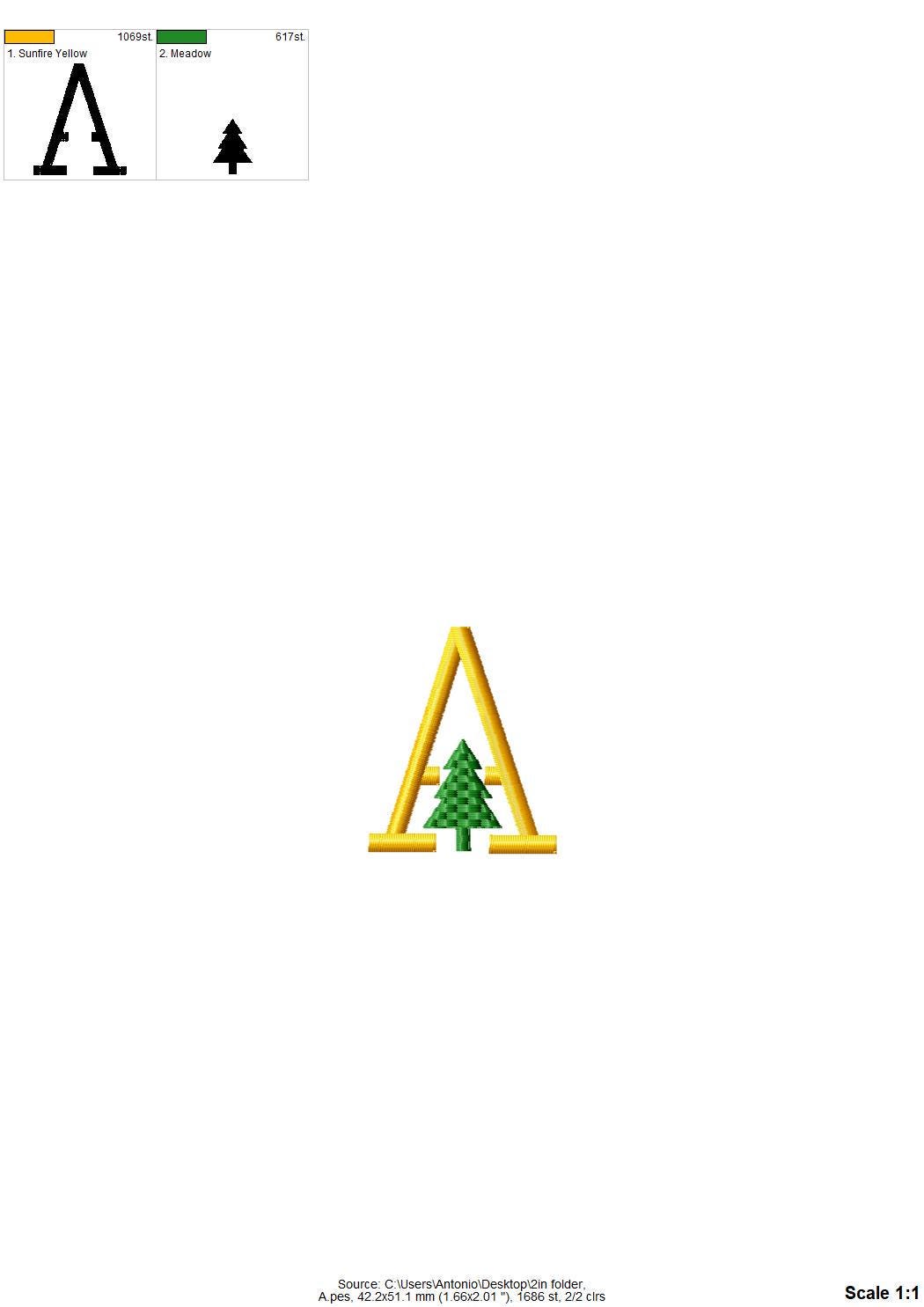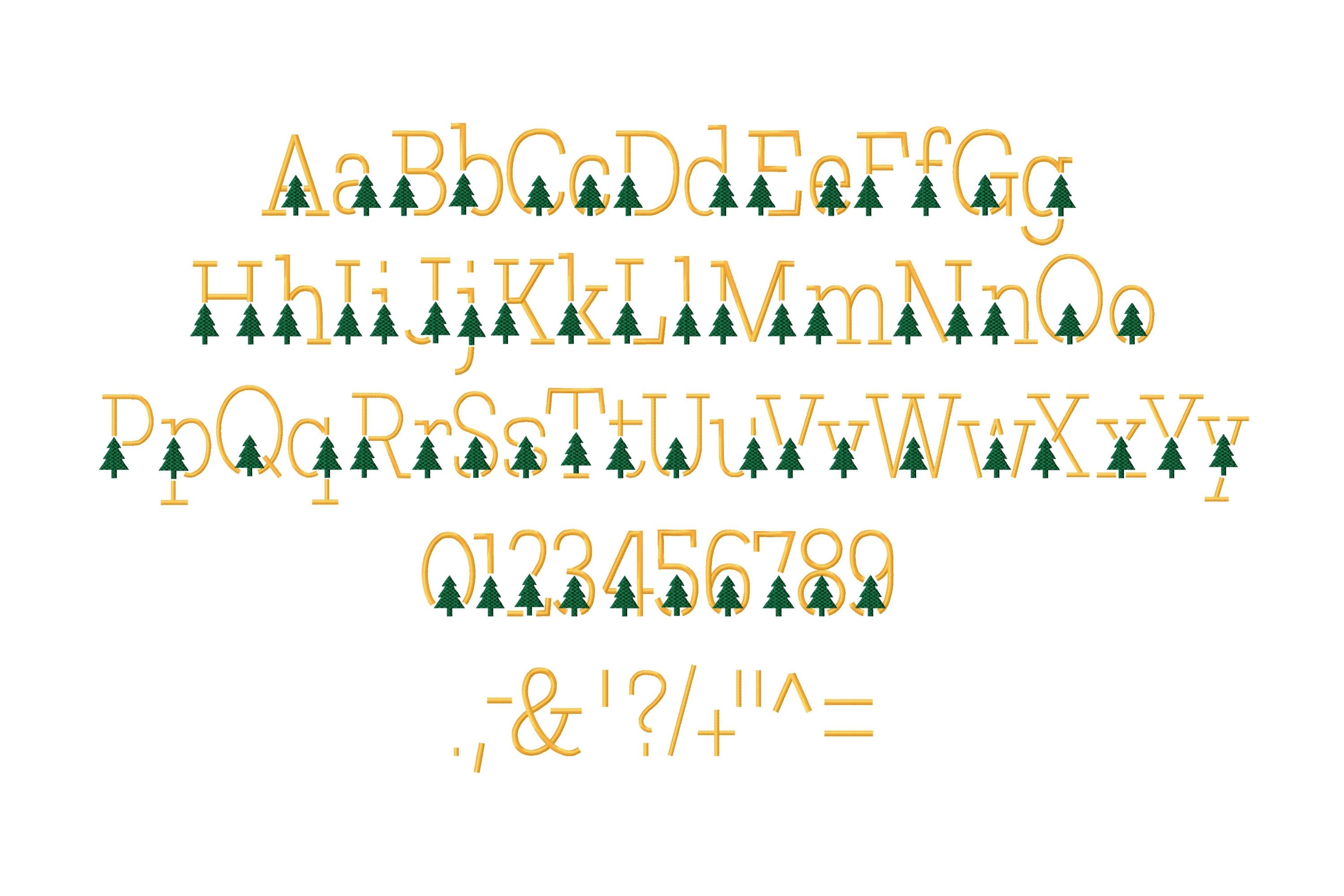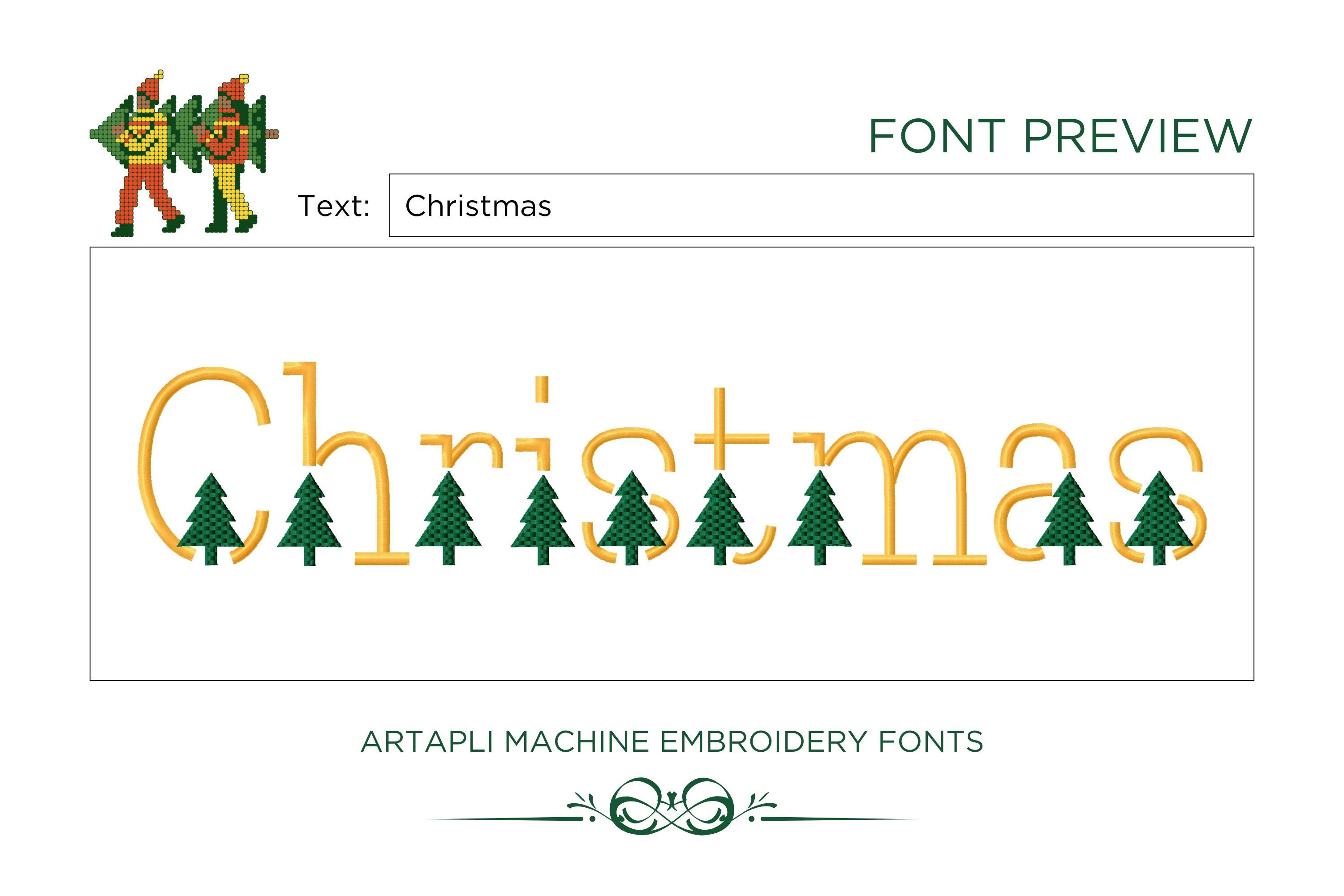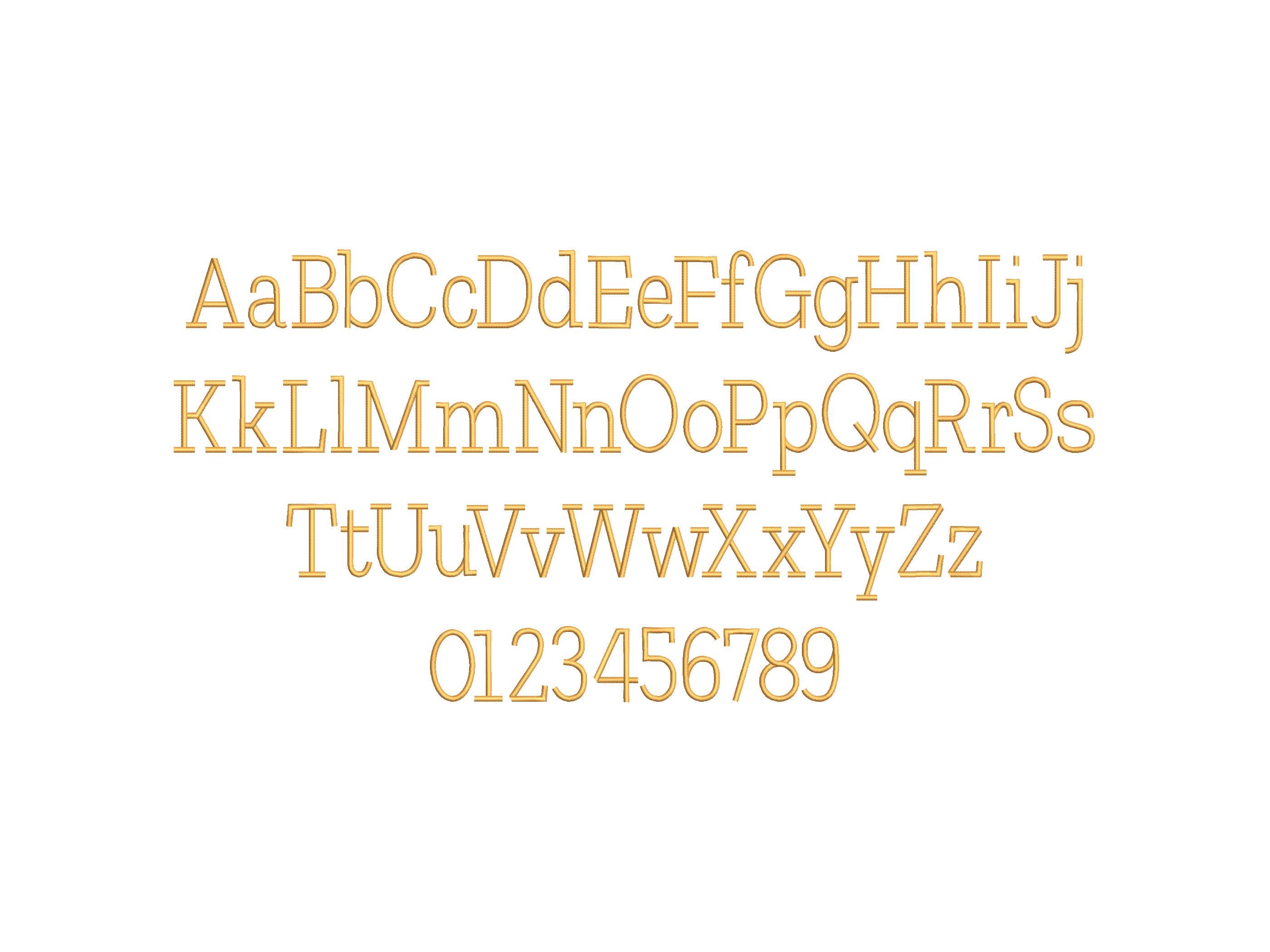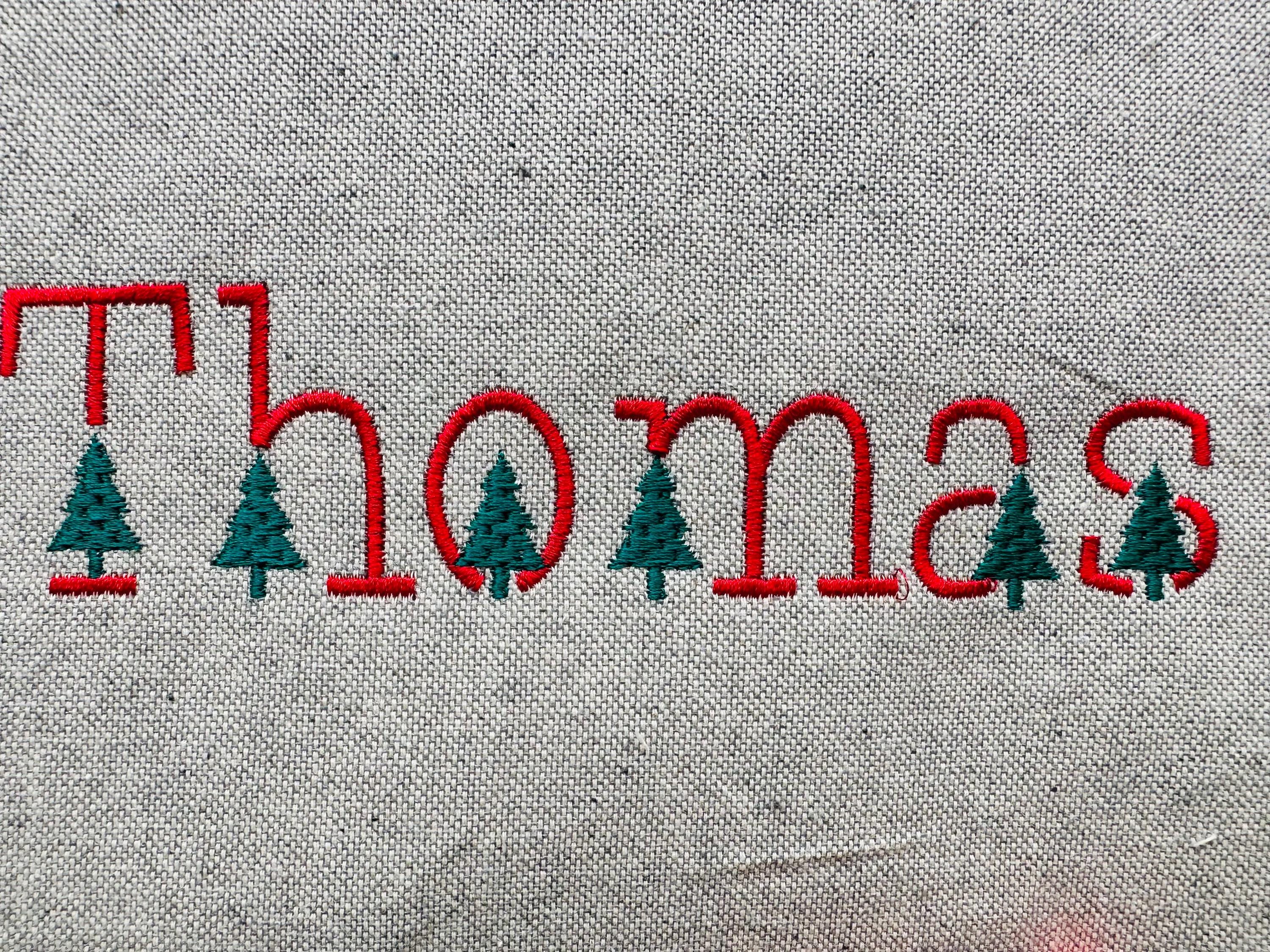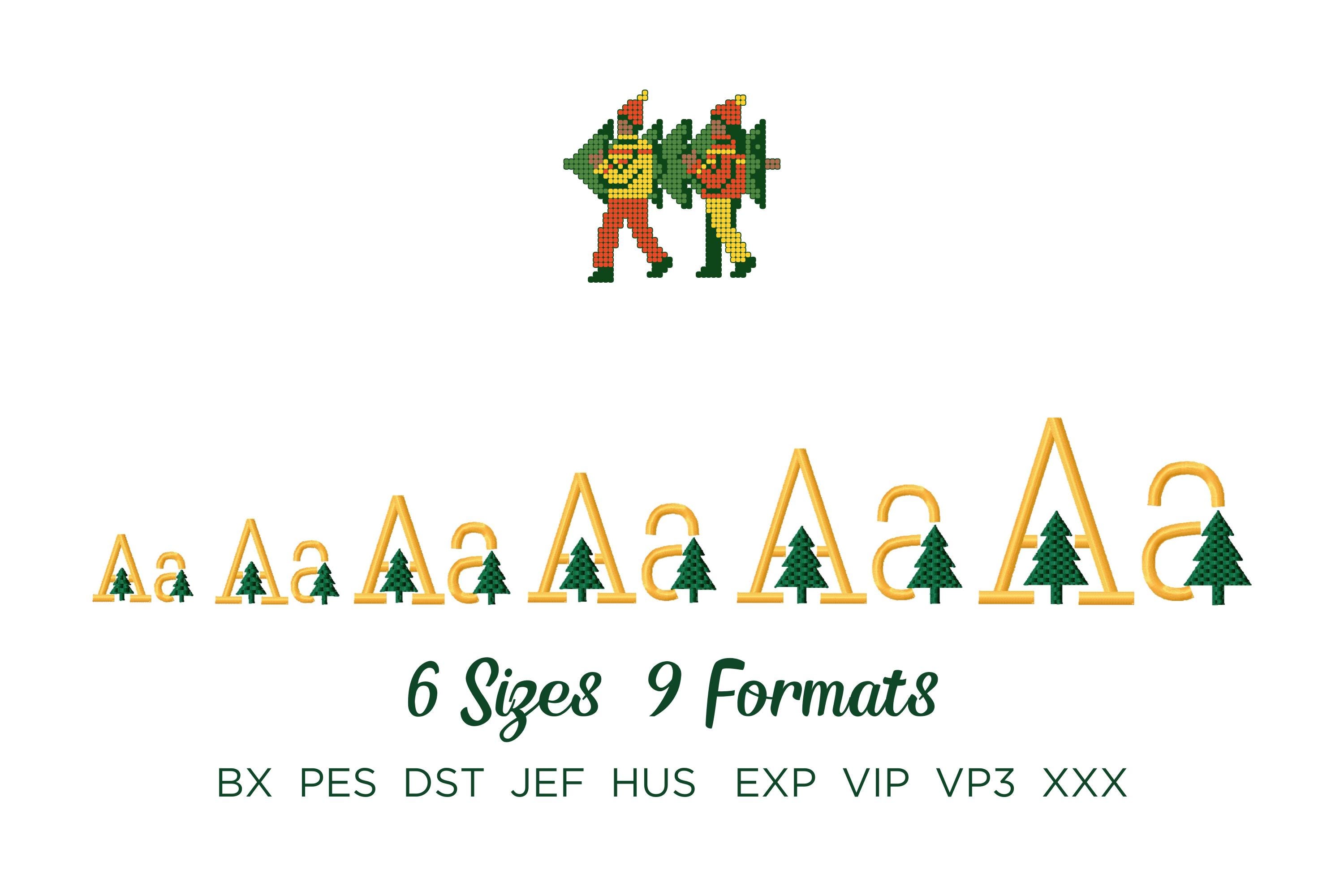
Included 2 fonts:
* satin stitch font with Christmas Tree
* satin stitch font
Entire alphabet uppercase and lowercase letters Aa-Zz, numbers 0-9, and punctuation.
Amazing design font! Just what I needed for matching sweatshirts for the family. I was also able to enlarge and it still stitched out great. Love the detail on the trees! Some of the ends of the letter like the C which passes the tree part and isn’t connected to the rest of the letter look a little crooked but you can’t really tell.